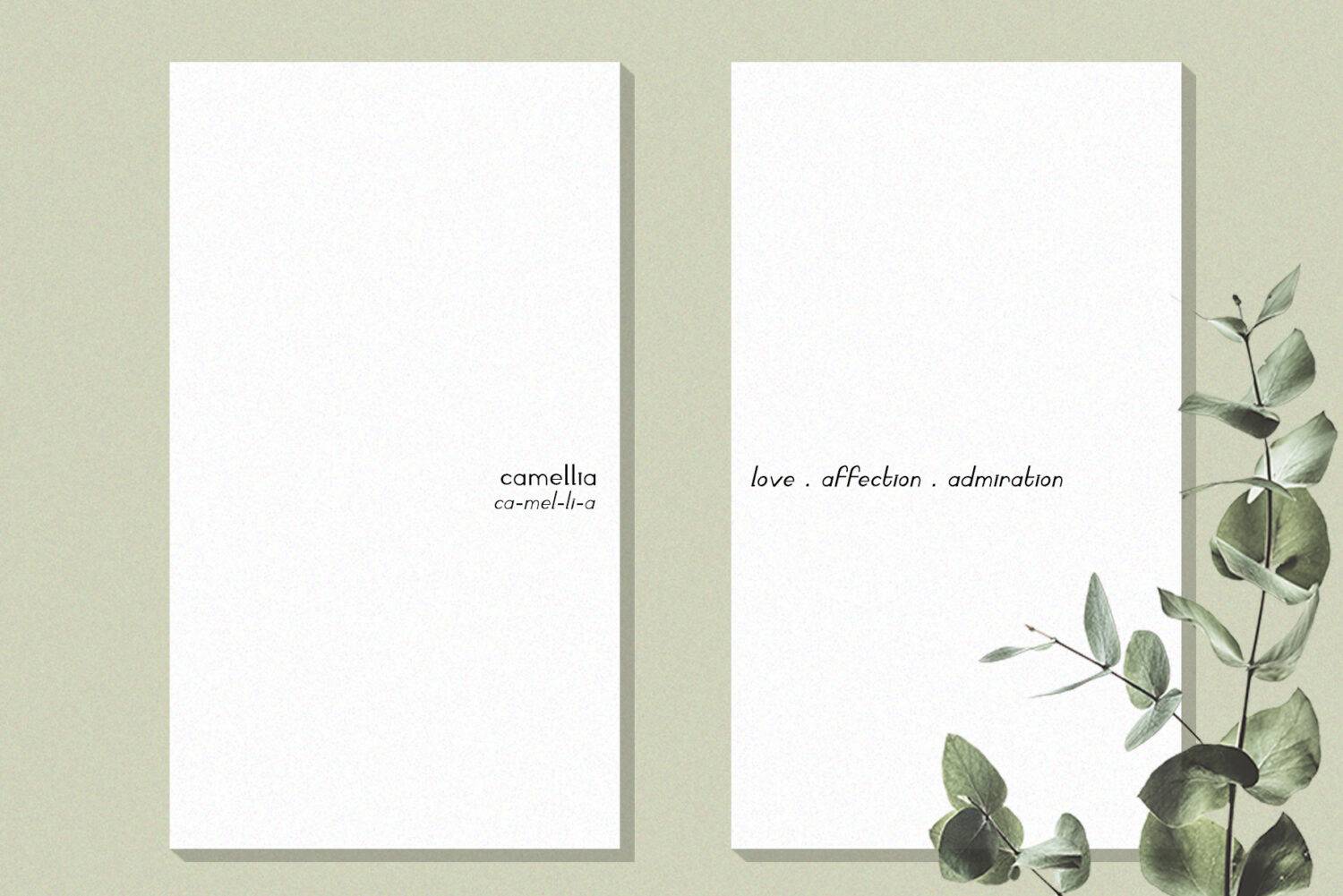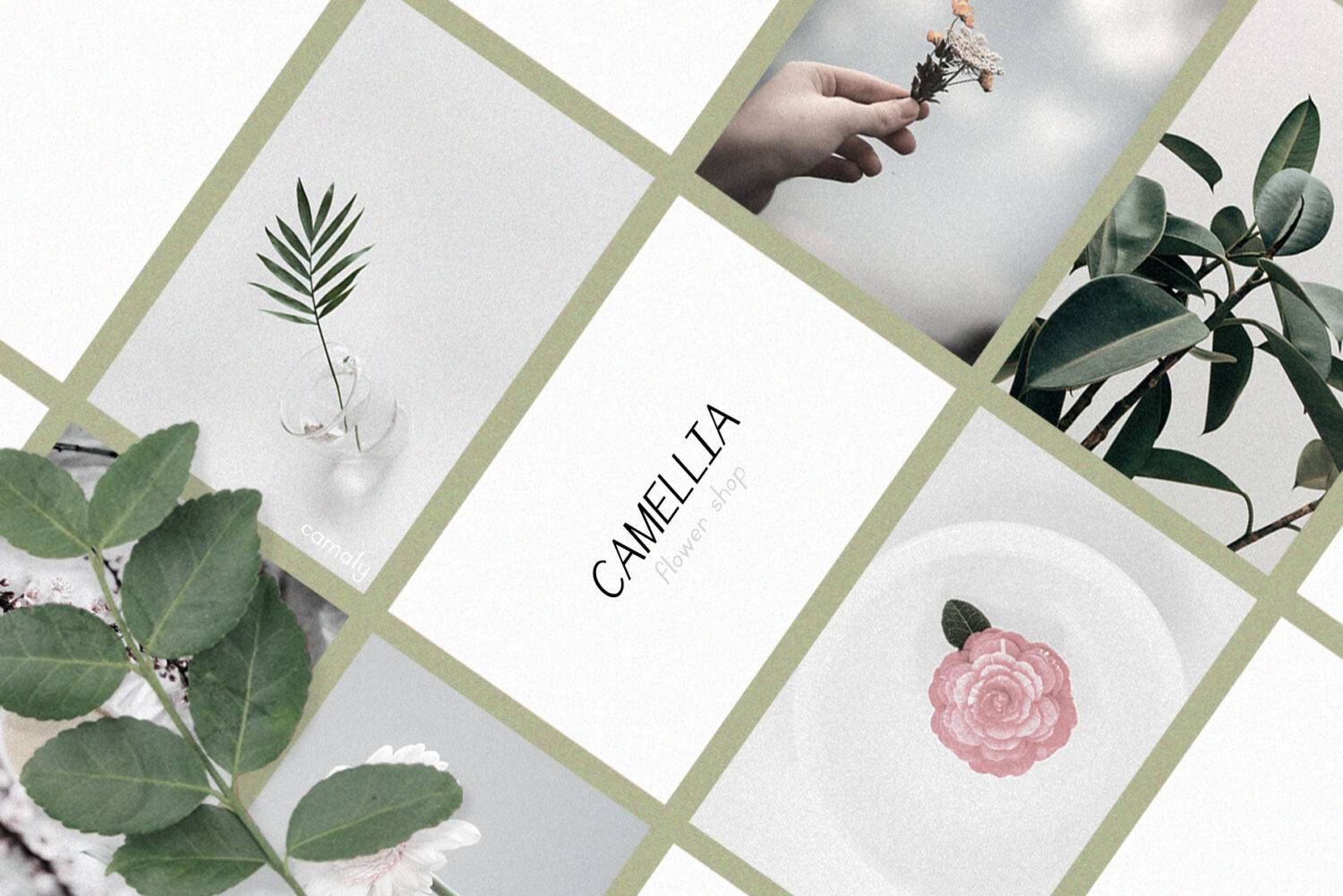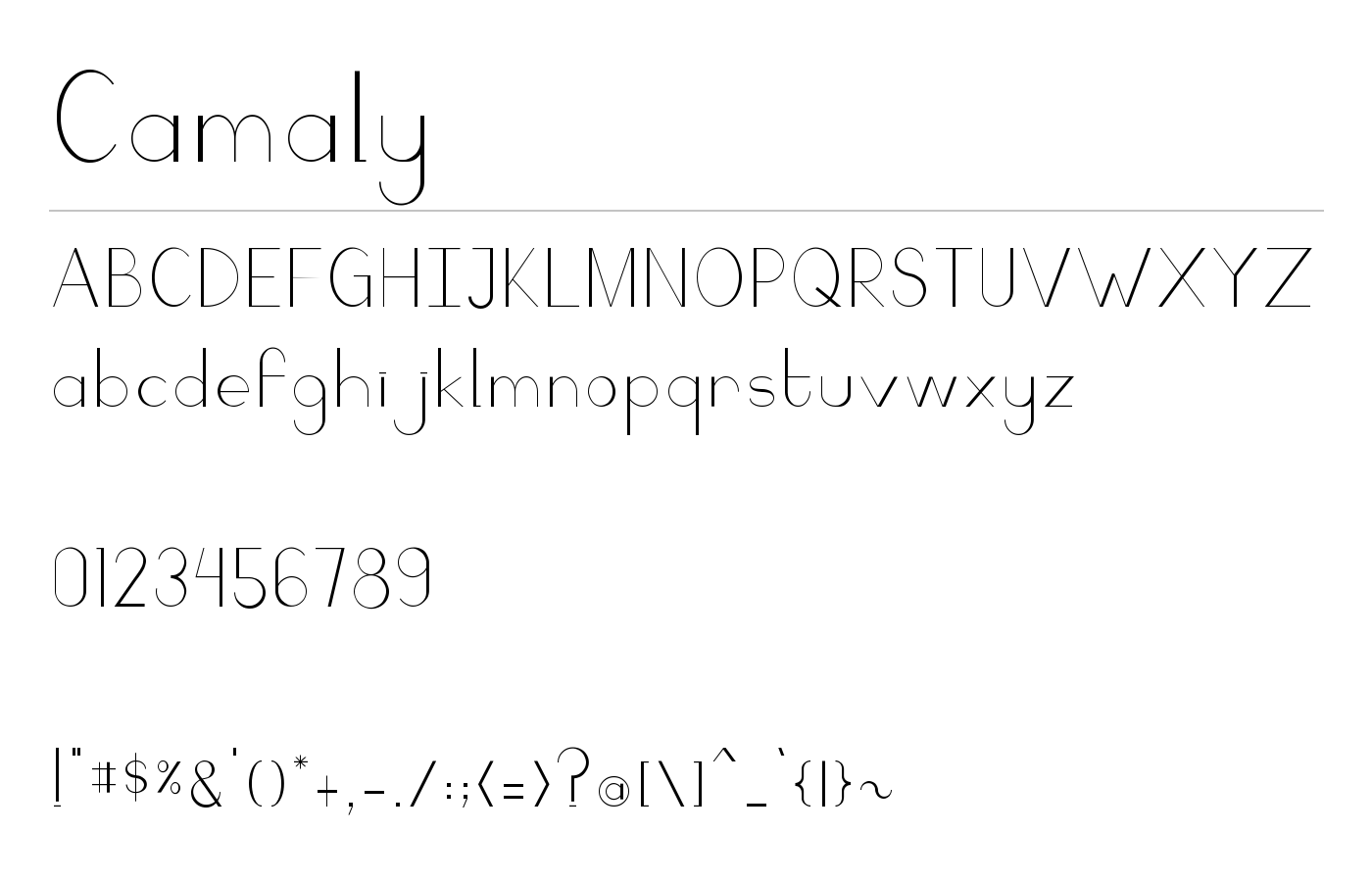
Camaly is a slender, elegant sans serif font with a tall x-height and delicate, rounded letterforms that bring a modern, sophisticated feel. Its thin strokes and graceful curves make it ideal for minimalist branding, editorial layouts, and stylish headlines where a refined, contemporary touch is desired. This font’s airy, clean design works beautifully in fashion, beauty, and luxury contexts, lending a subtle yet distinctive personality to any project.
Camaly Font
About Camaly Font